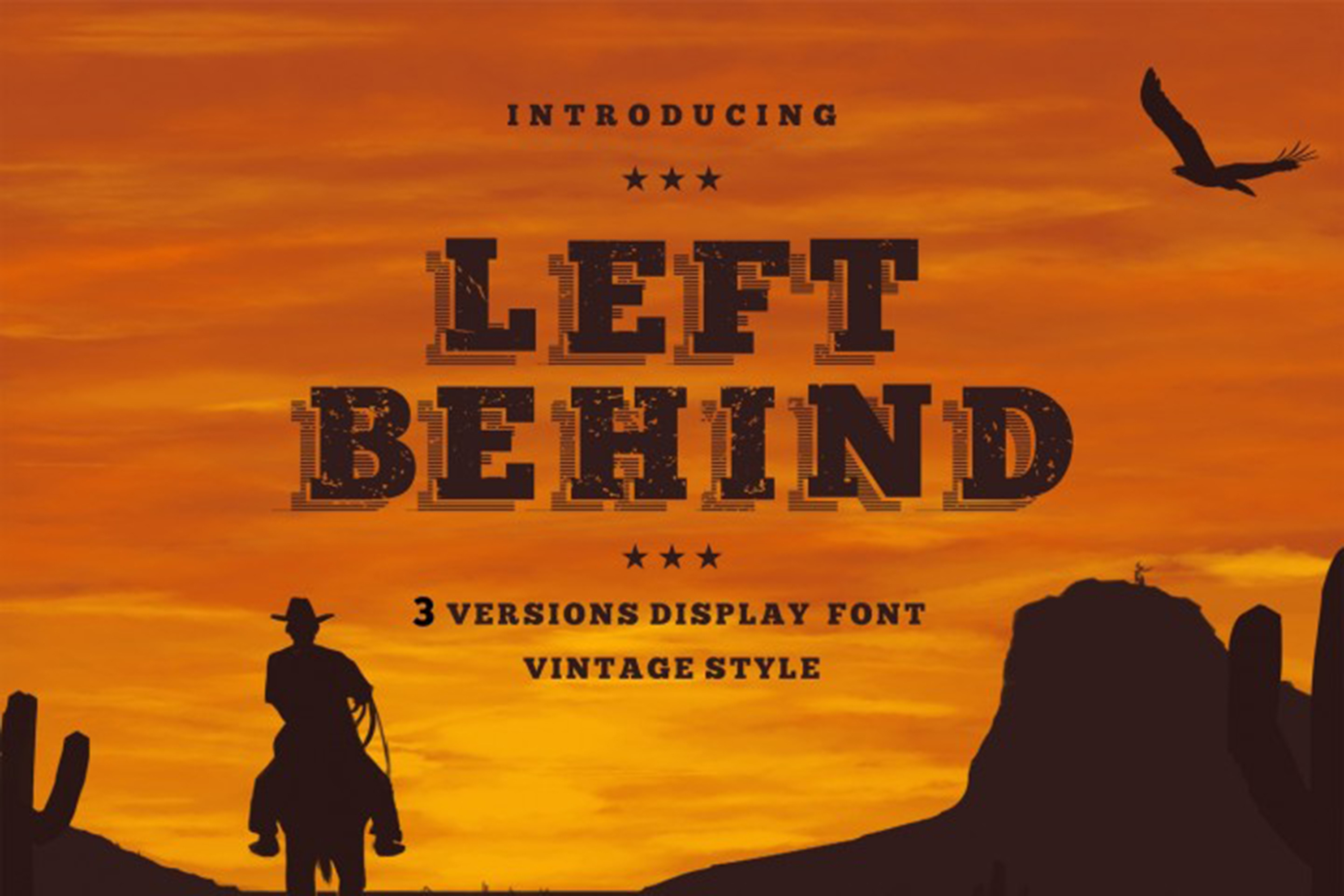
Left Behind Vintage Font
LeftBehind
LeftBehind is a stylized font that have letters that look like damaged from wind and covered with dust and rubbish. However, this is not like damage you would expect to be. This type of damage is uncontrolled and strange. On some letters it is more than expected and there is a little damage on others. There is no consistency of damage percentage on the letters. This is making this font unique. It has its own style and can be used as standalone or as a combined with any other font as well. Great possibility to stick into designs with photomanipulation. Could be used as cover for books, headings on multiple pages text in fiction, bullet points on power point presentation, chapter section of novels etc. This font has stylish shadow that can be incorporated with great number of design needs. Use this font to create incredible design work now!